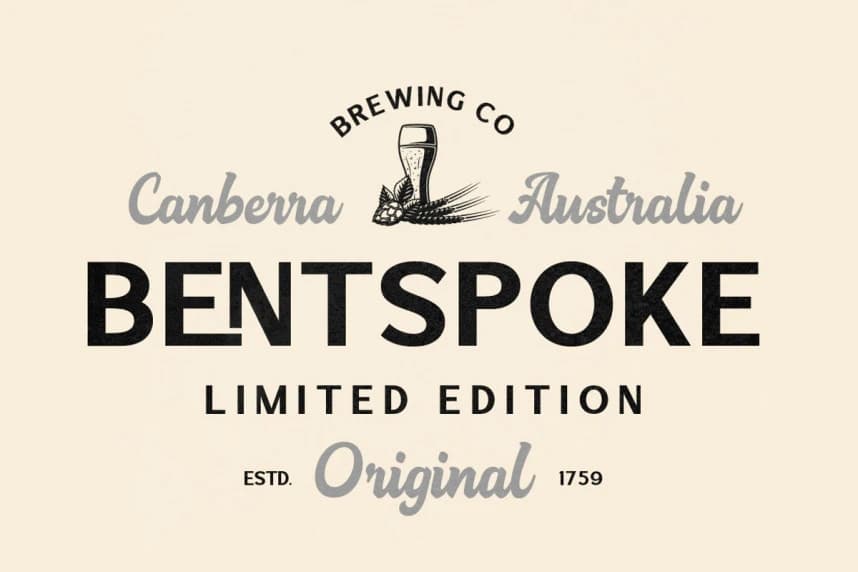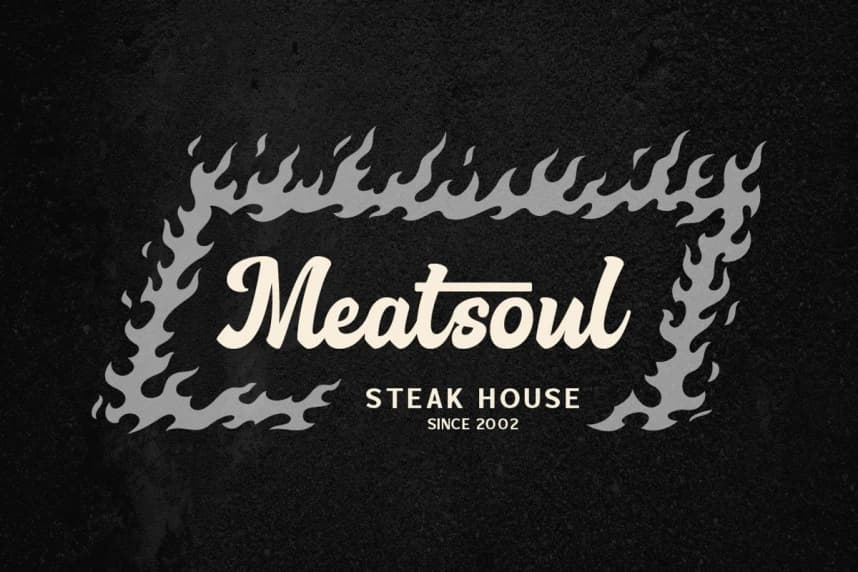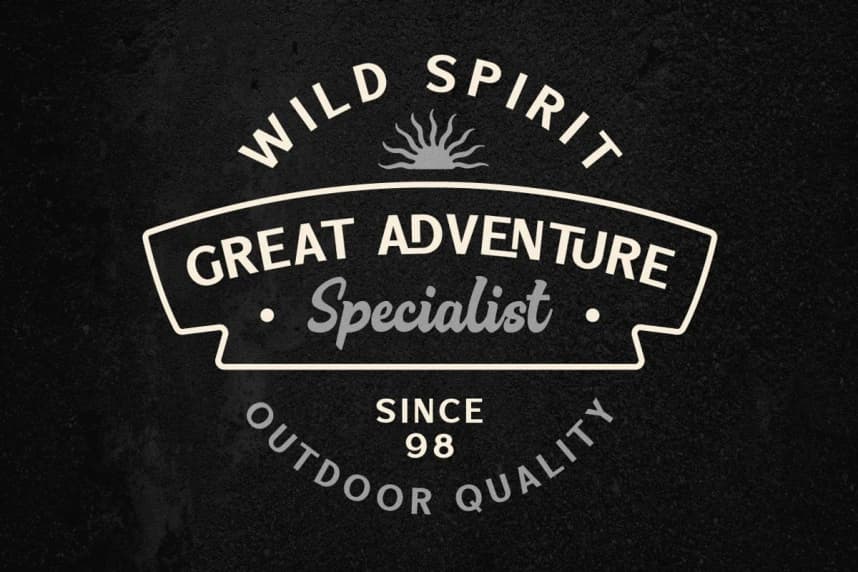
Blackroad Font
Blackroad Font is a bold and stylish duo font that combines a clean sans serif with a smooth vintage script. Designed to bring a strong retro personality, this font is perfect for creating eye-catching designs with a classic and rugged feel.